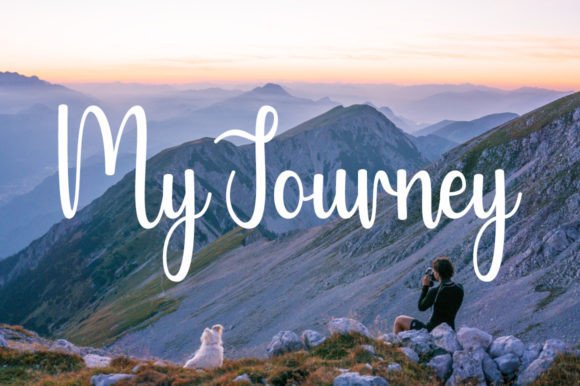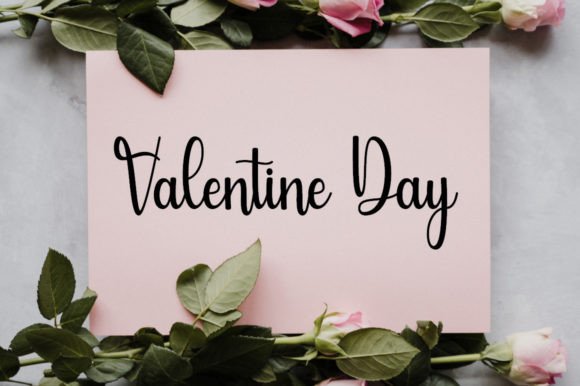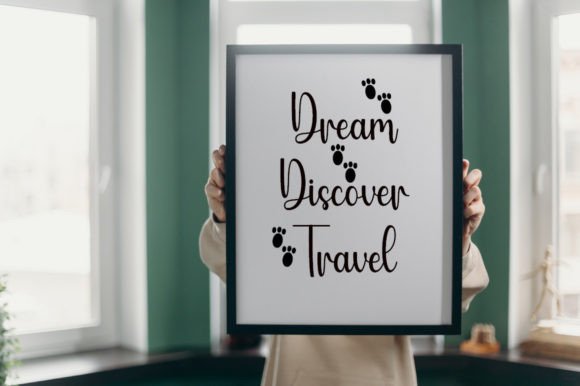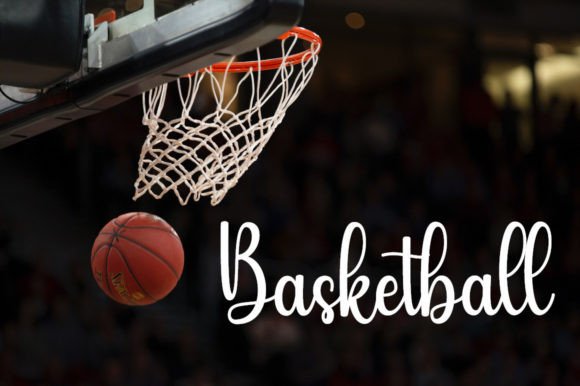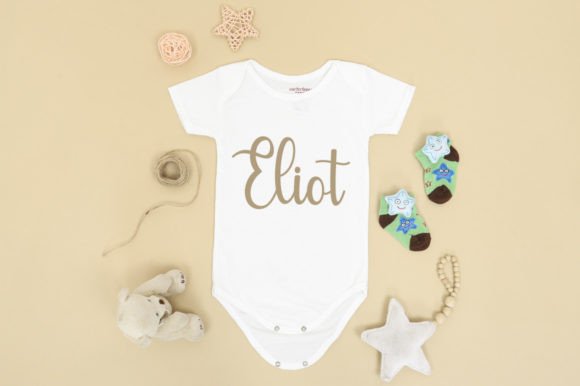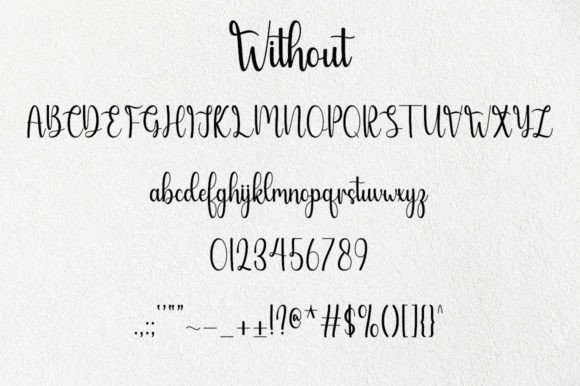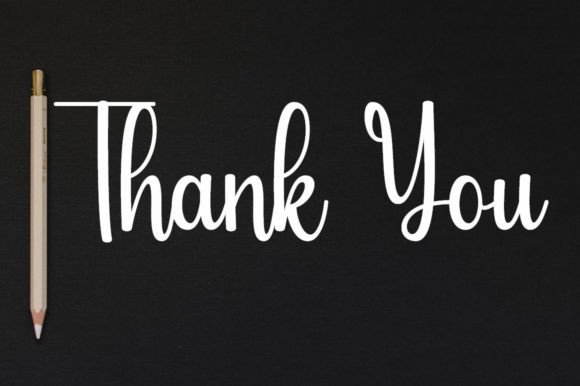
Without Font
About Without Font
Without is a delicate, elegant, and flowing handwritten font. It has beautiful and well-balanced characters and as a result, it matches a wide pool of designs.